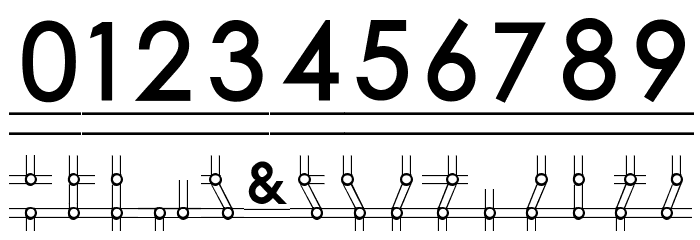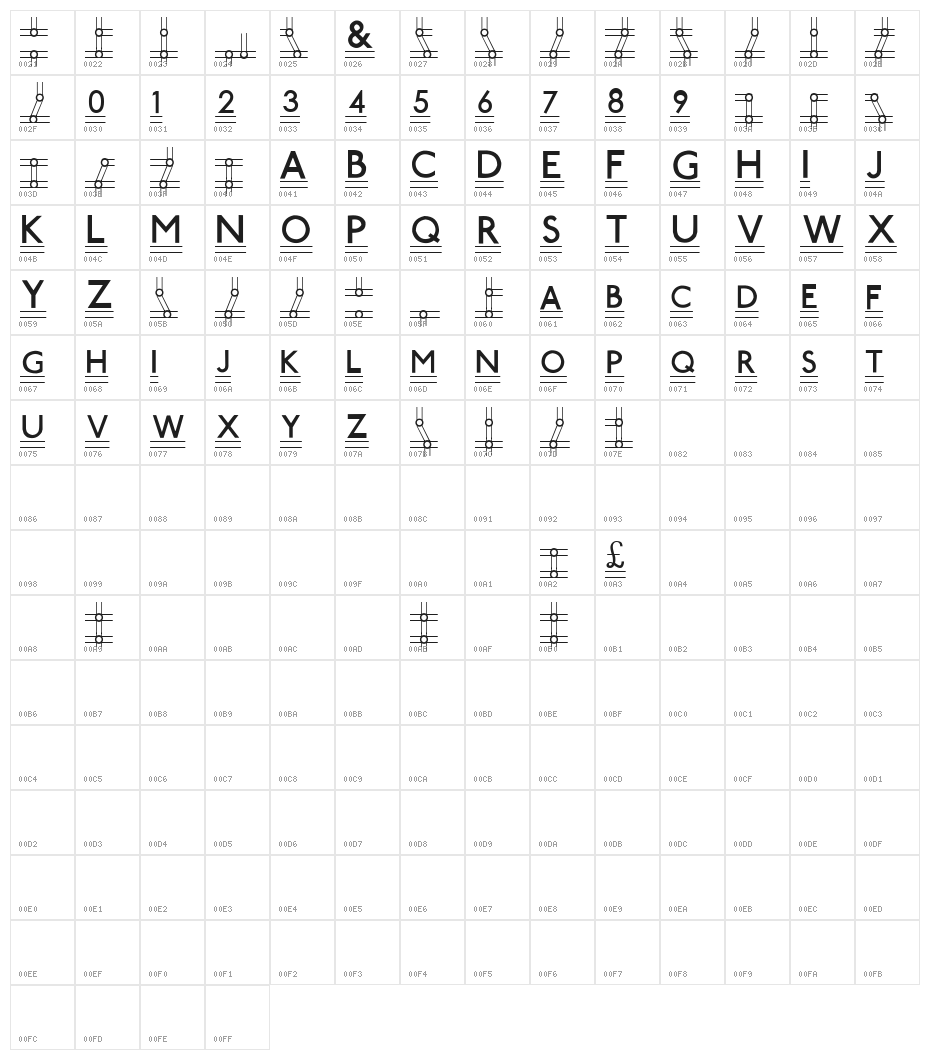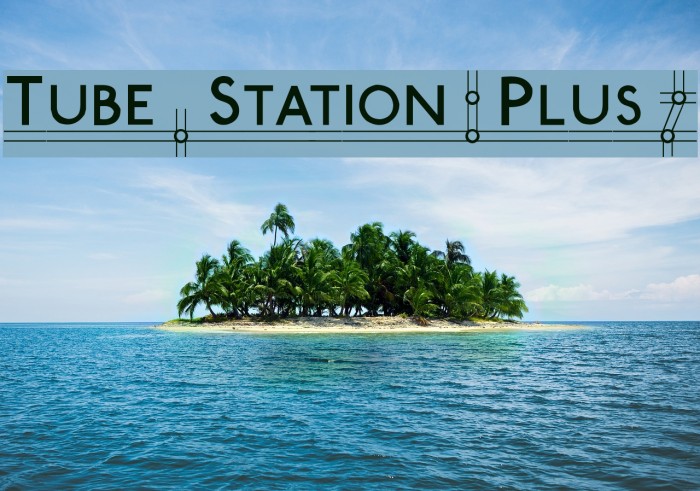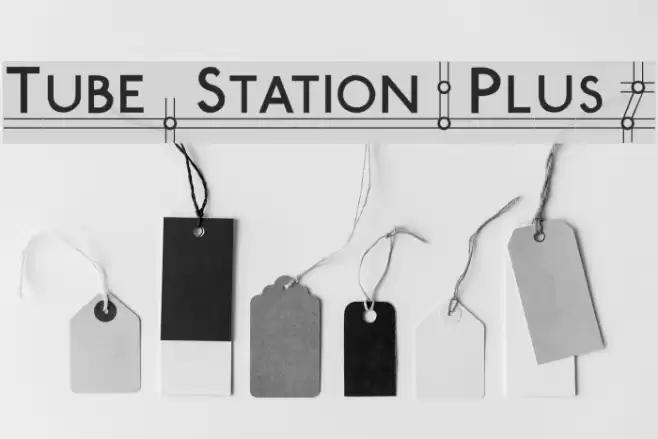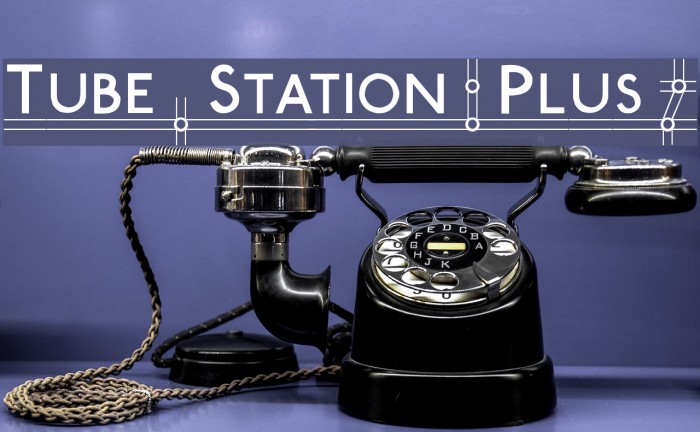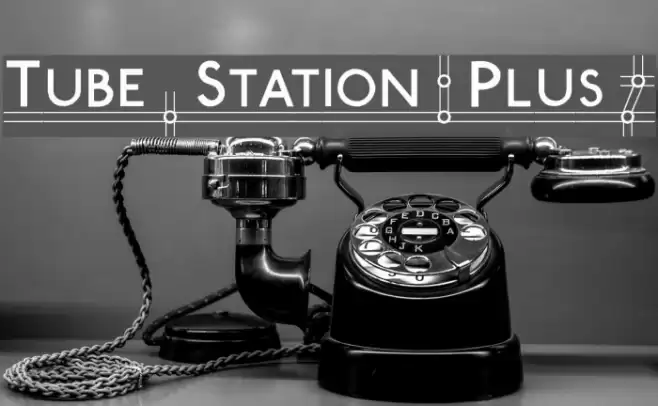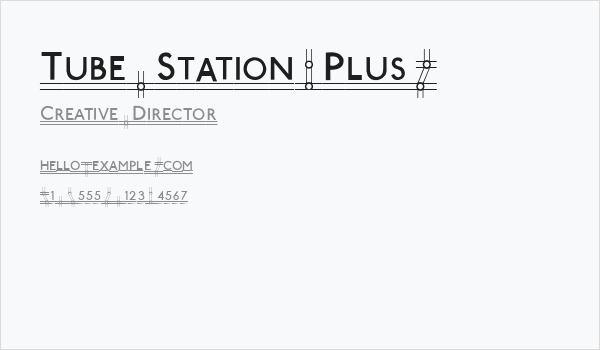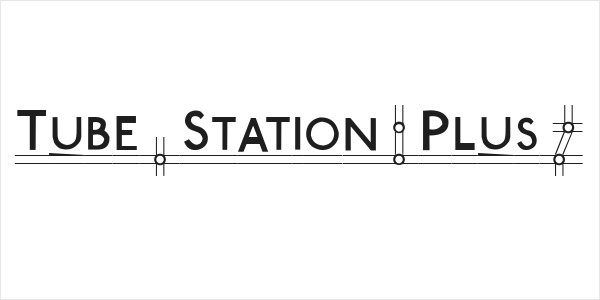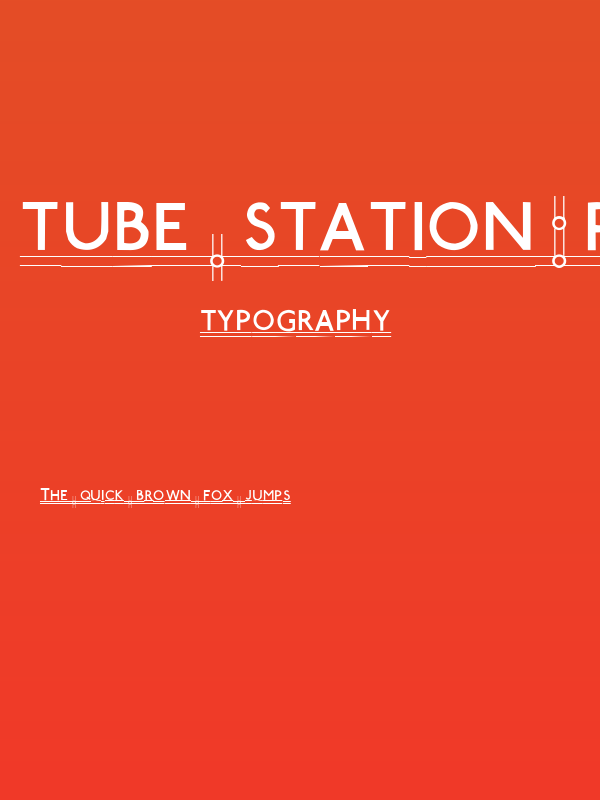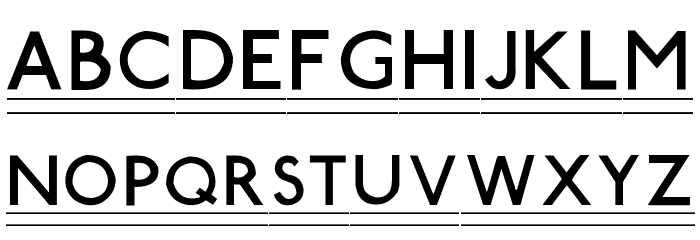
This font features a clean and modern sans-serif design, characterized by its geometric shapes and uniform stroke widths. The uppercase letters are bold and assertive, making them ideal for attention-grabbing headlines. The lowercase letters maintain the same geometric consistency, providing a harmonious balance between the two cases. The numerals are clear and legible, designed to complement the overall aesthetic. Special characters are included, offering versatility for various design needs. The font's simplicity and clarity make it suitable for a wide range of applications, from signage to digital interfaces.
| Use Case | Headlines, Logos, Signage |
| Proposed Projects | Ideal for branding, signage, digital interfaces, and editorial design. |